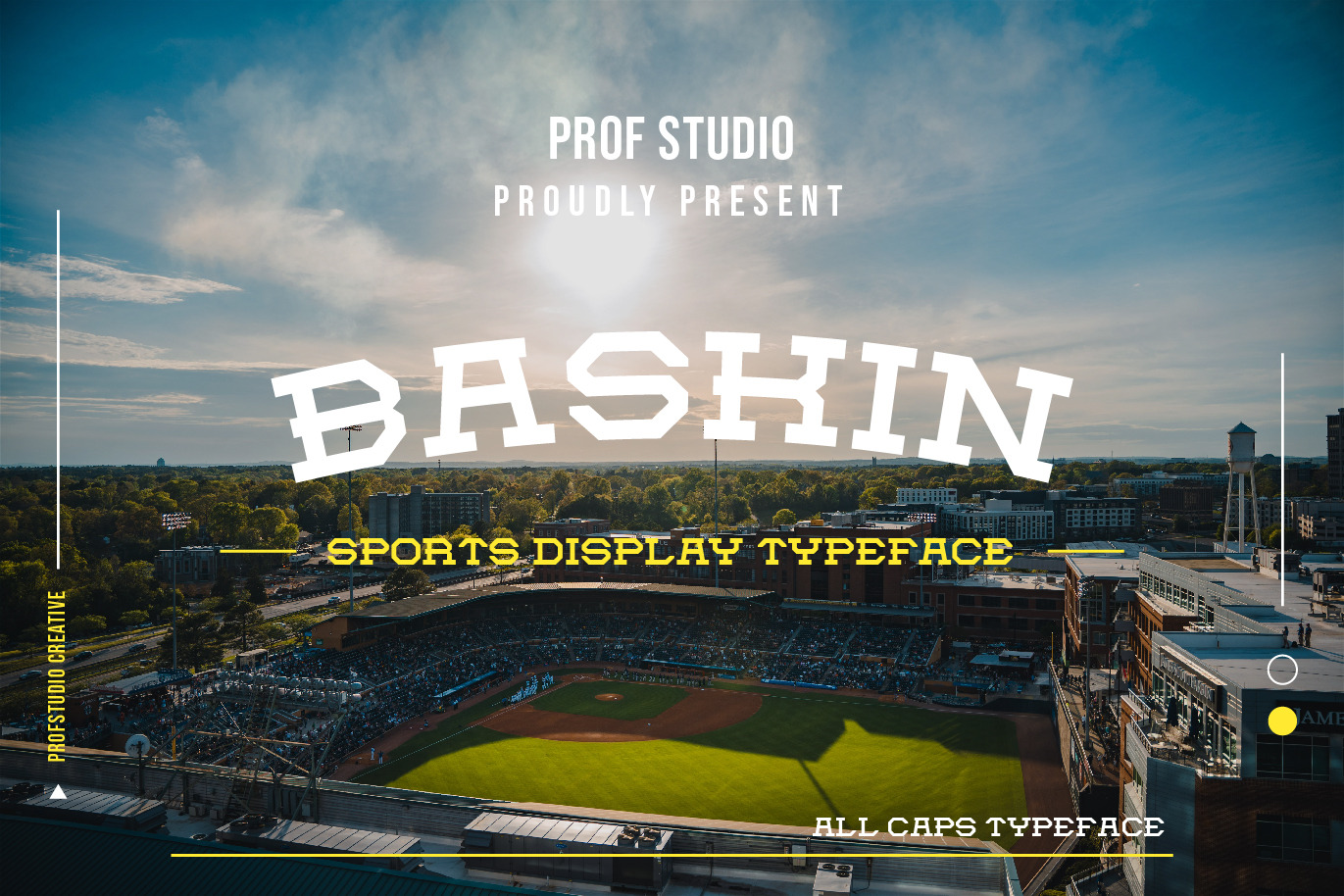
Baskin - Sports Varsity Typeface
Hi Ladies and Gentleman ! Proudly present Sports Display Typeface “Baskin” for your business.
Baskin - Sports Display which can be interpreted professional. we keep this font looks Modern, sporty readable, stylish, catchy and easy to use.
Baskin - is the great choice for event design ,sports magazine and many other design project. Baskin here to make your work to high level!!!